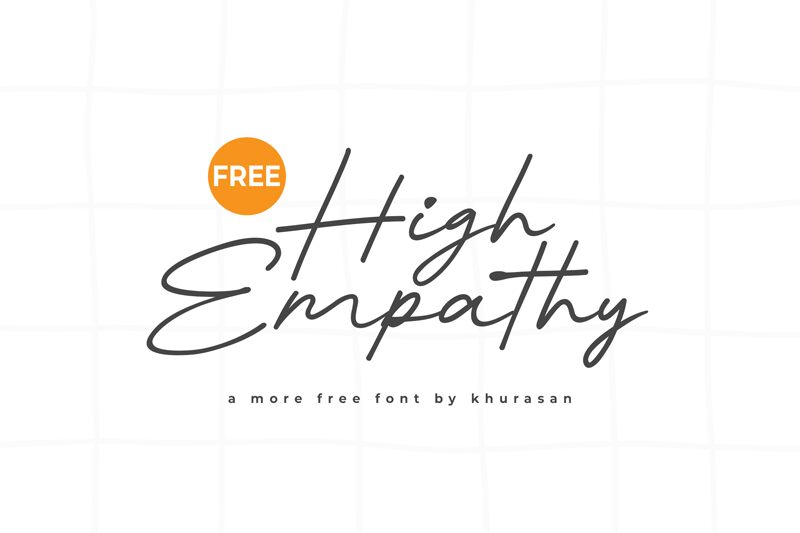
High Empathy
High Empathy font by Khurasan is a light handwritten typeface that reflects a stylish, human-like, and personal touch. Expressive with modern script characteristics, the letters have beautiful flows that altogether make the text less formal and elegant. Every character design was well-thought, especially the lowercase ones which all connect like in cursive writing.
Use it right now for wedding invitations, greeting cards, branding projects such as restaurant logos or beauty product packaging. Other uses can be book title designs or typography posters for events related to creativity such as concerts or museums. Social media thumbs and website headers could also feature it for great results.